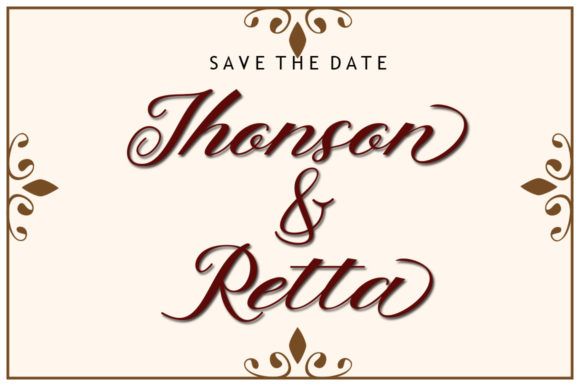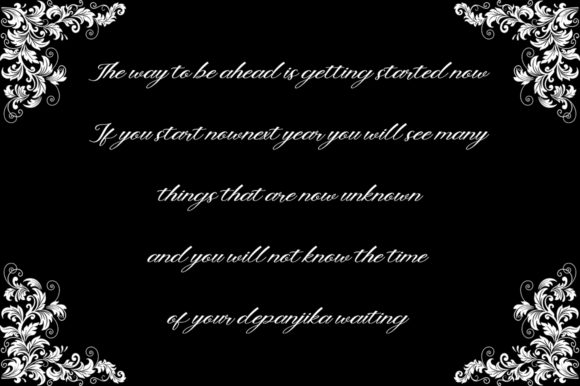
Authenia Script Font
db-ku.com - Script & Handwritten -- The Authenia is a high quality script font. It has a vintage touch and is very easy to read. The classic style is perfect to be applied in various formal forms such as invitations, labels, menus, logos, fashion, make up, stationery, letterpress, romantic novels, books, and much more!